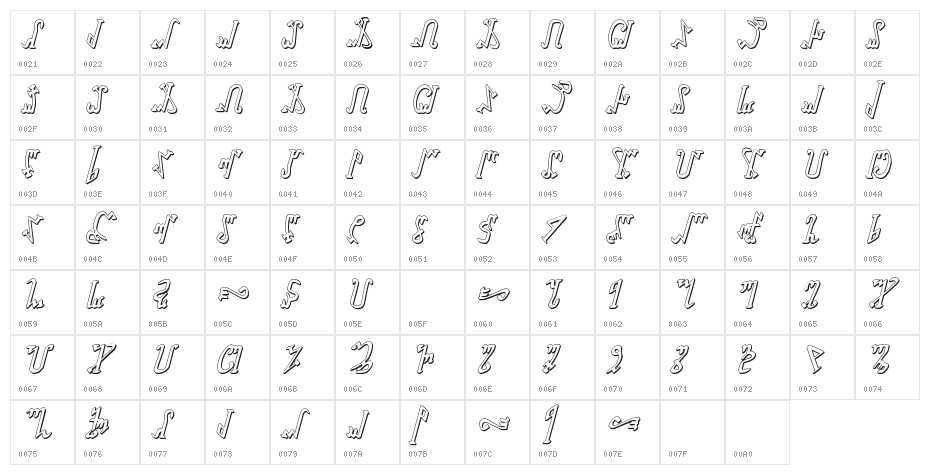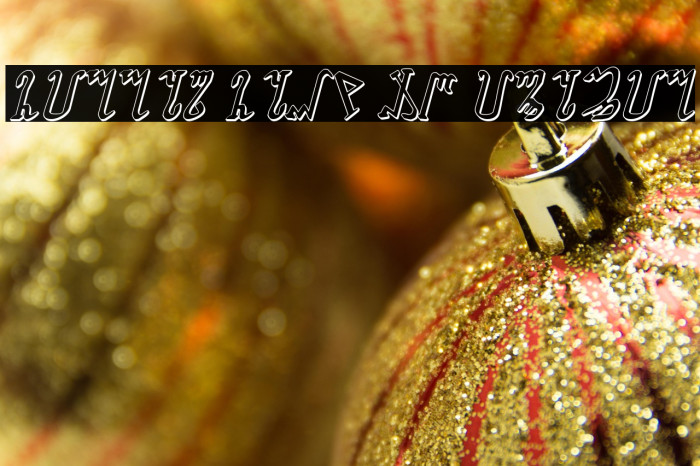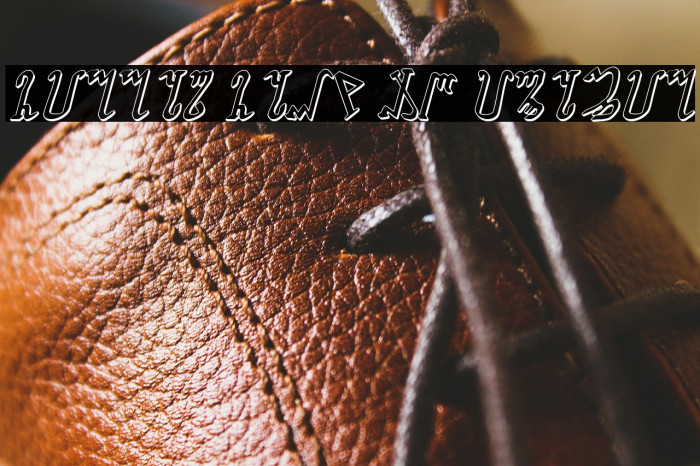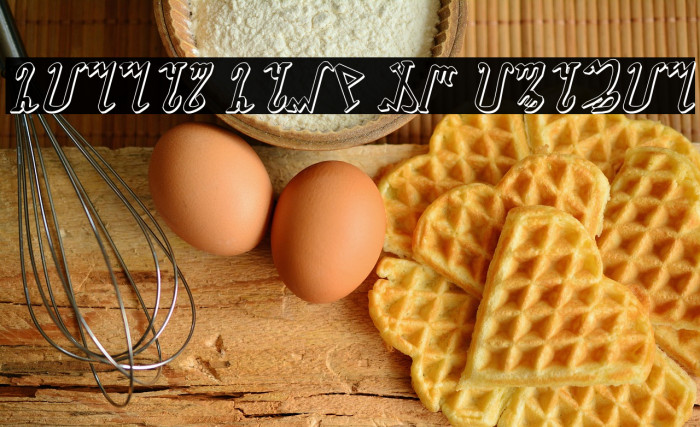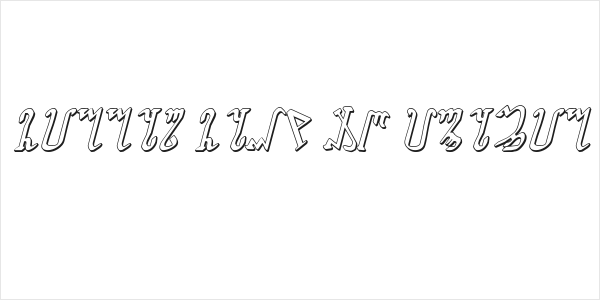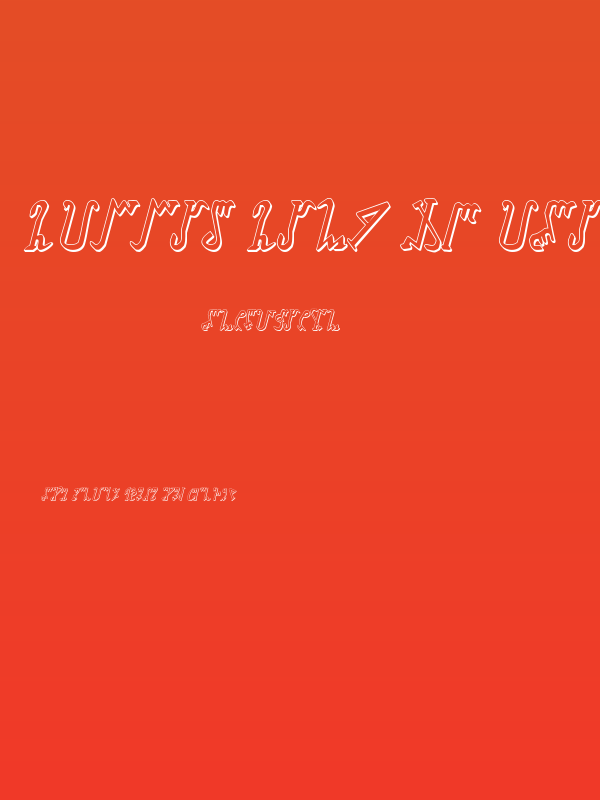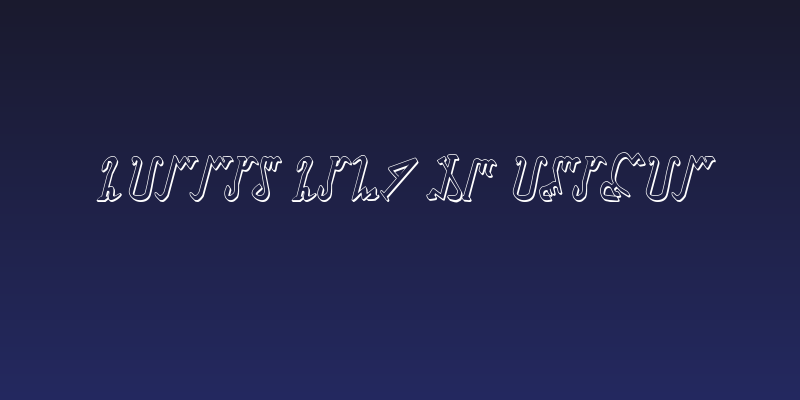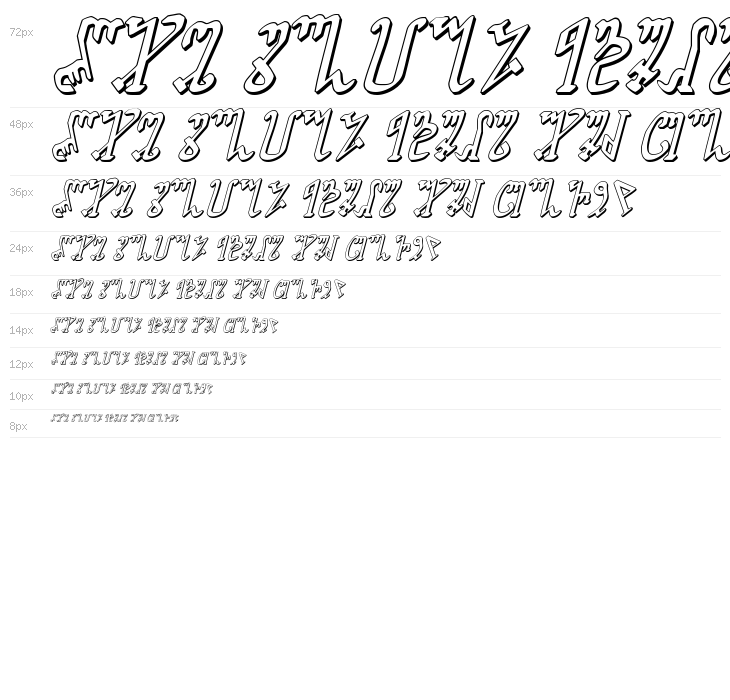
Wiccan Ways 3D Italic Font
Wiccan Ways 3D Italic Description
This font features a unique, mystical design with a 3D italicized effect. The characters have a bold, shadowed appearance that gives them depth and dimension. Each letter is crafted with sharp, angular lines and curves, creating an enigmatic and magical aesthetic. The font's style is reminiscent of ancient scripts, with a modern twist that adds a sense of mystery and intrigue. The overall look is decorative and eye-catching, making it suitable for projects that require a touch of fantasy or otherworldly charm.
| Proposed Projects | Ideal for fantasy-themed projects, book covers, game titles, or any design needing a mystical touch. |